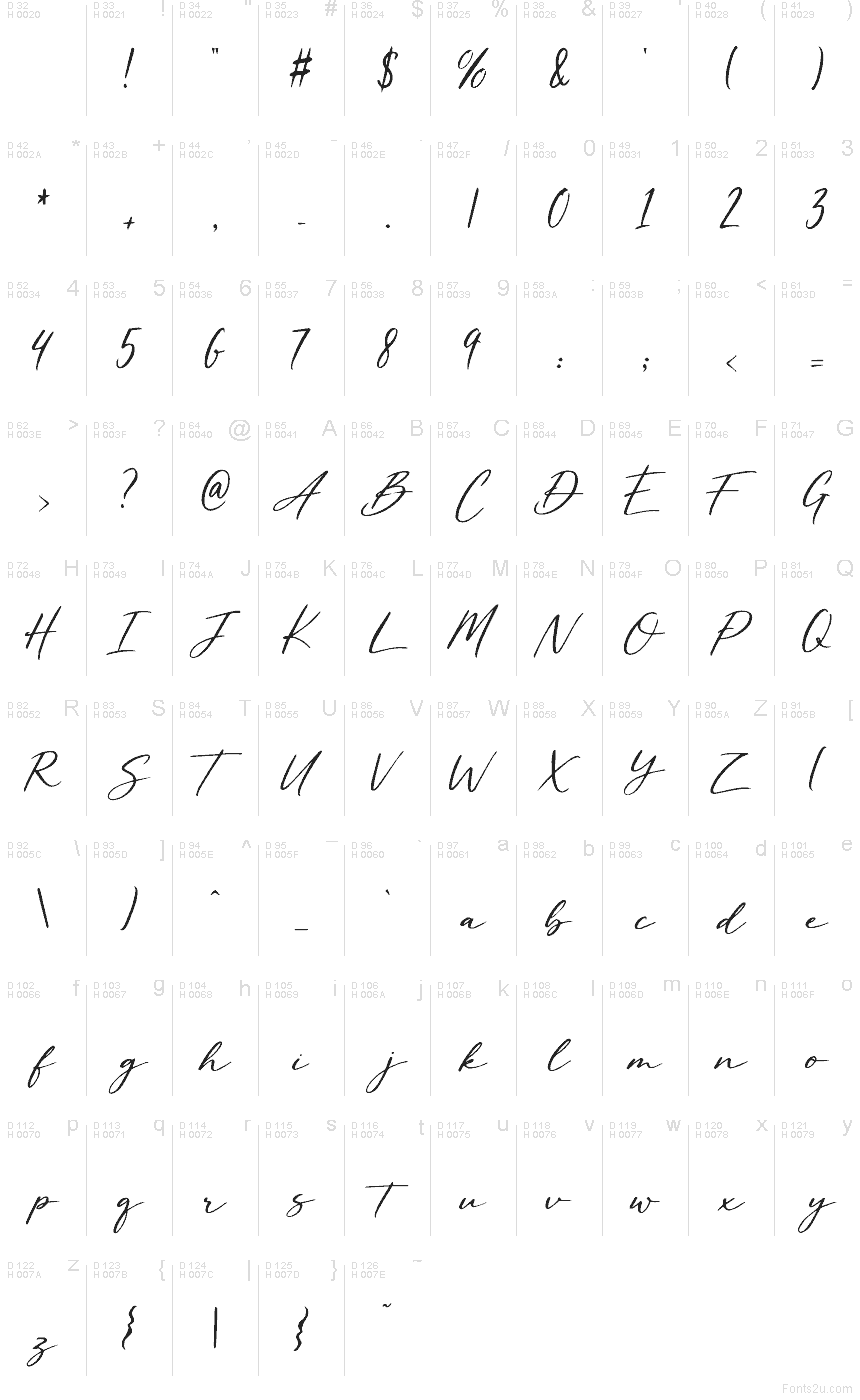
La Seduction de la Nuit
La Seduction de la Nuit by BlackFridayFont is a free handwritten signature script with a fashion-led, after-dark mood. The letters sweep across the line in long, airy strokes, mixing slim hairline curves with a few larger loops so the font feels casual, elegant, and slightly elusive.
It suits branding, perfume packaging, invitation work, editorial cover lines, and social media headers where a name or phrase needs that quick handwritten flourish. As a free font, it also makes sense for title cards and short logo-style wordmarks, especially when you want the stretched entry strokes and loose rhythm to do most of the styling.